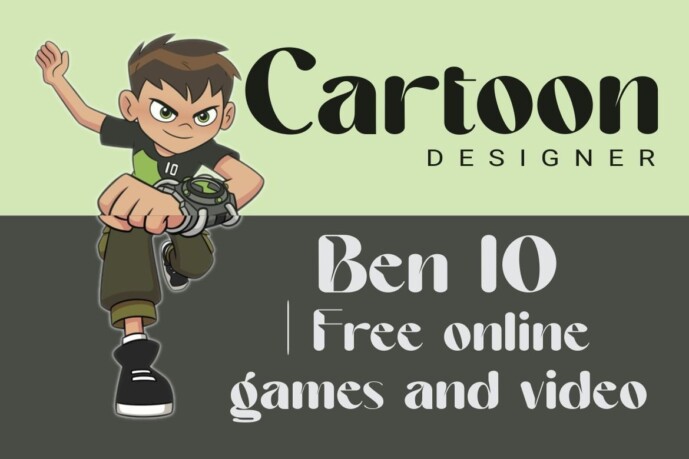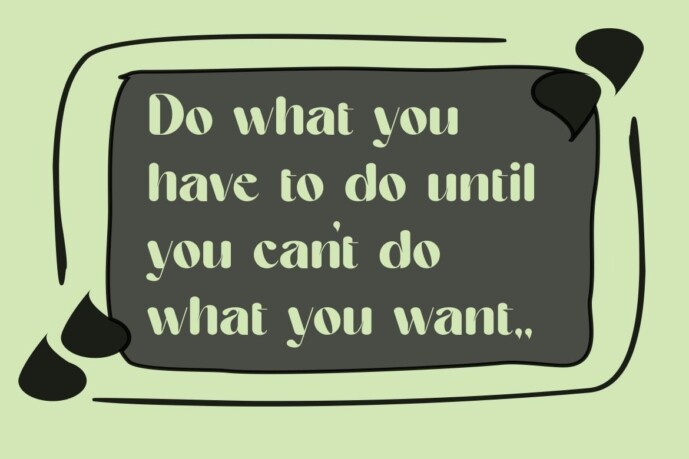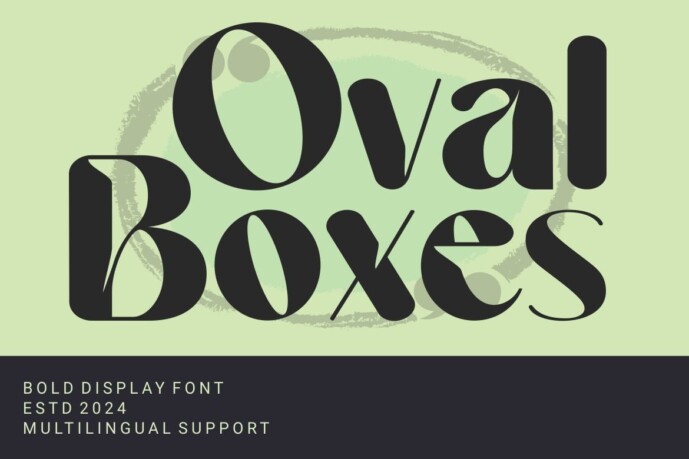
OvalBoxes Font
Designer: cozzdesign
OvalBoxes Font – Bold Display Font – Modern Font is a bold and authentic display font. The font is suitable for any branding projects such as Logo, T-shirt printing, esports, etc. It looks outstanding in a wide range of contexts